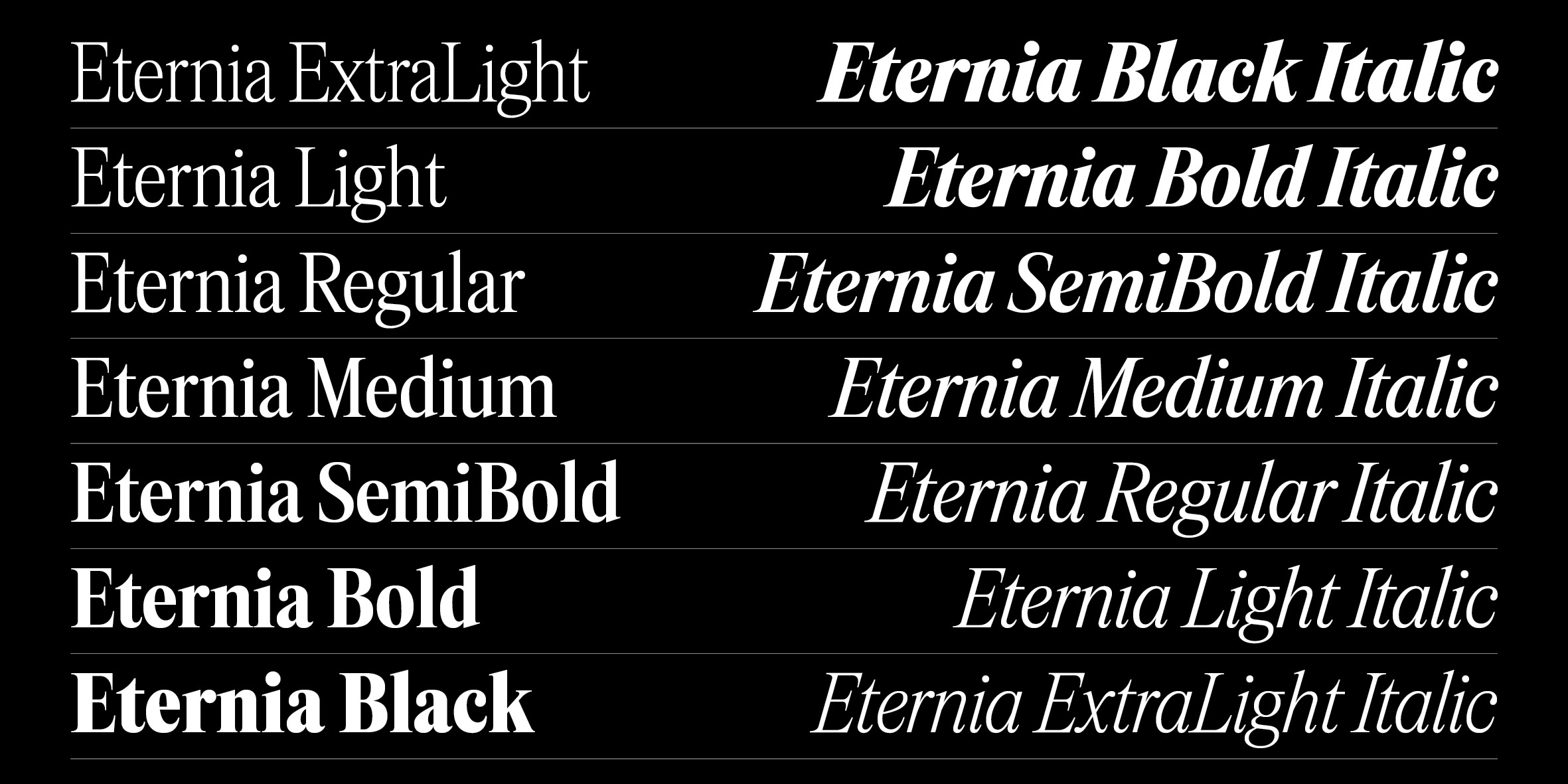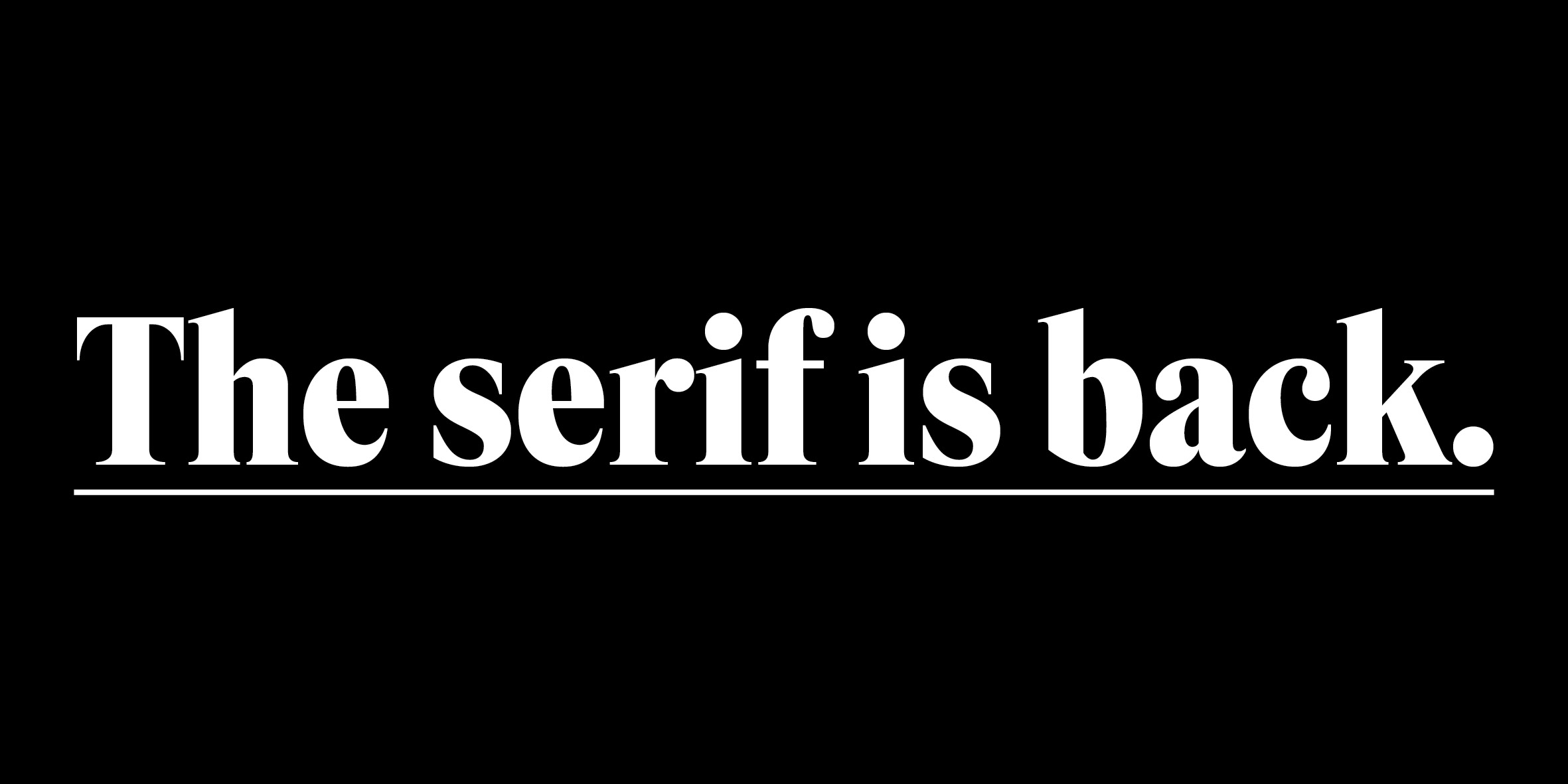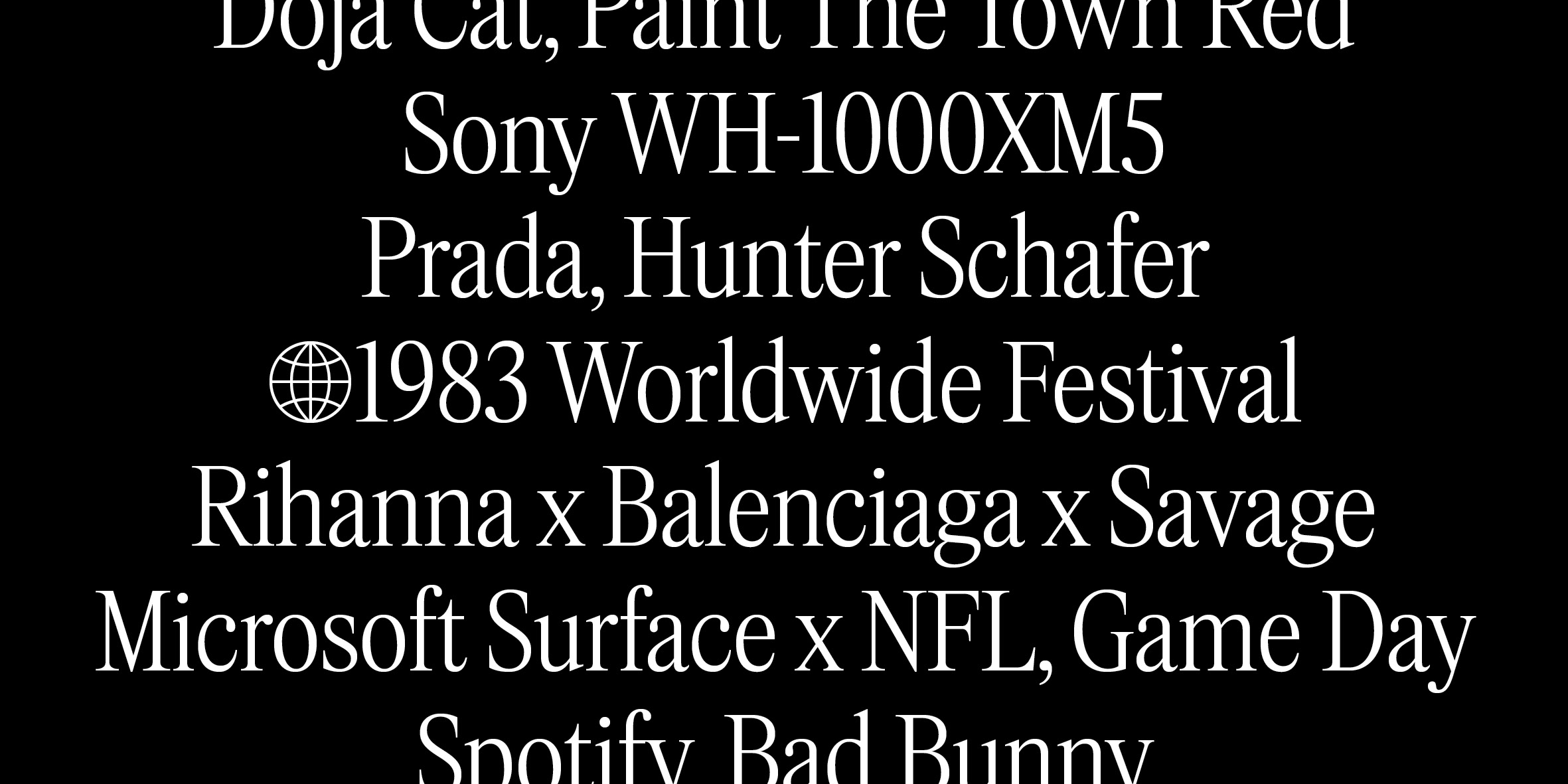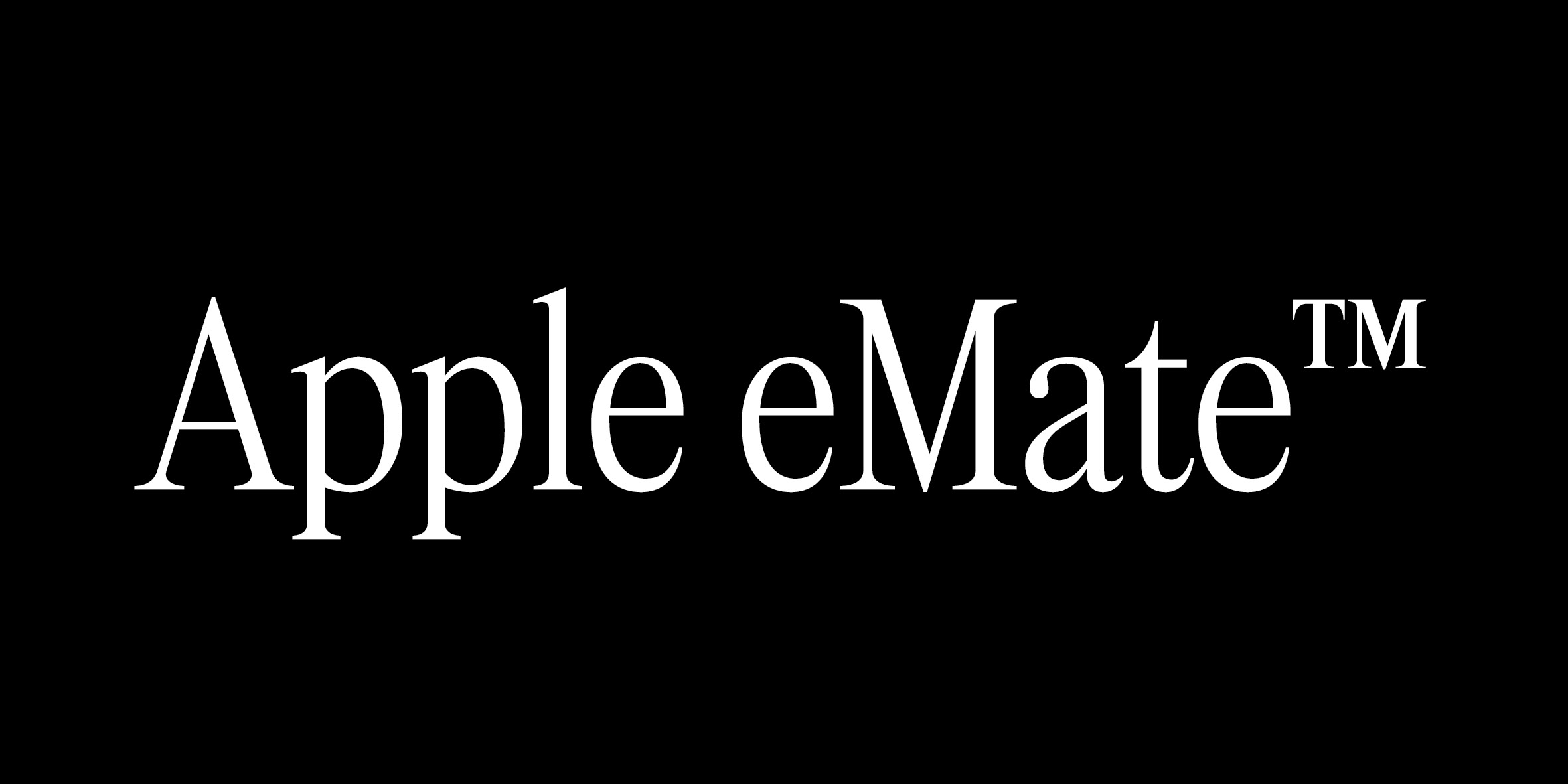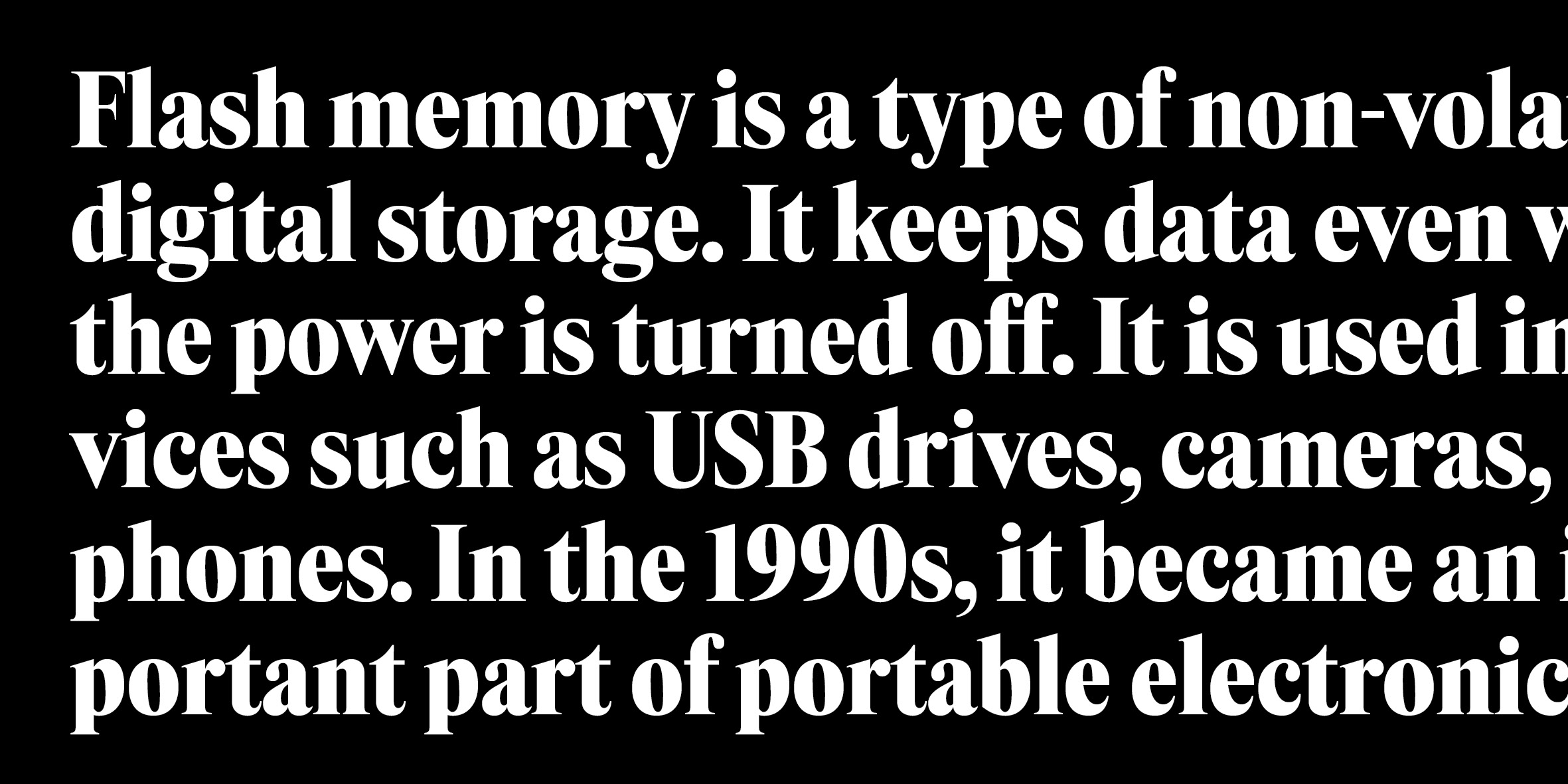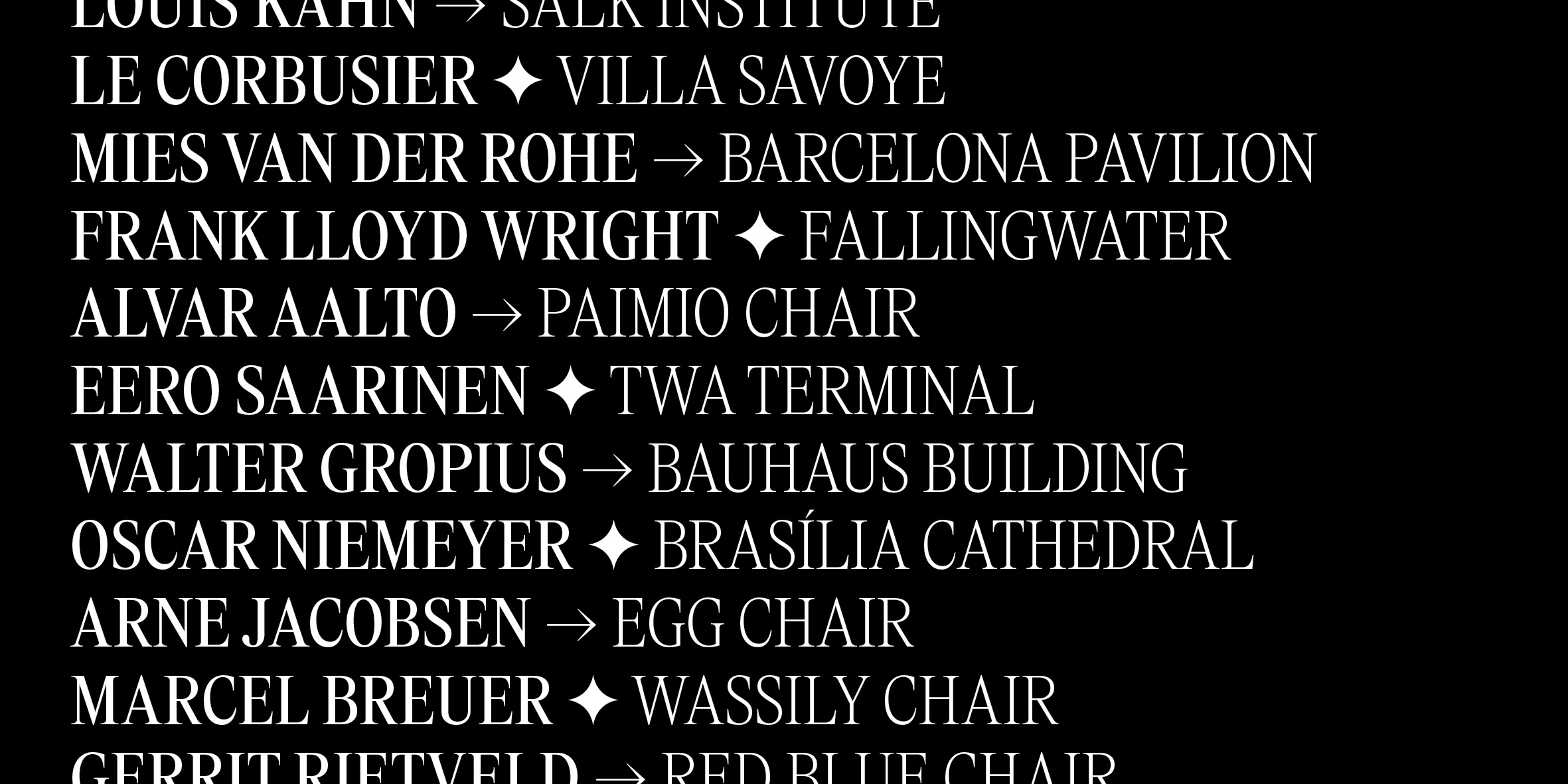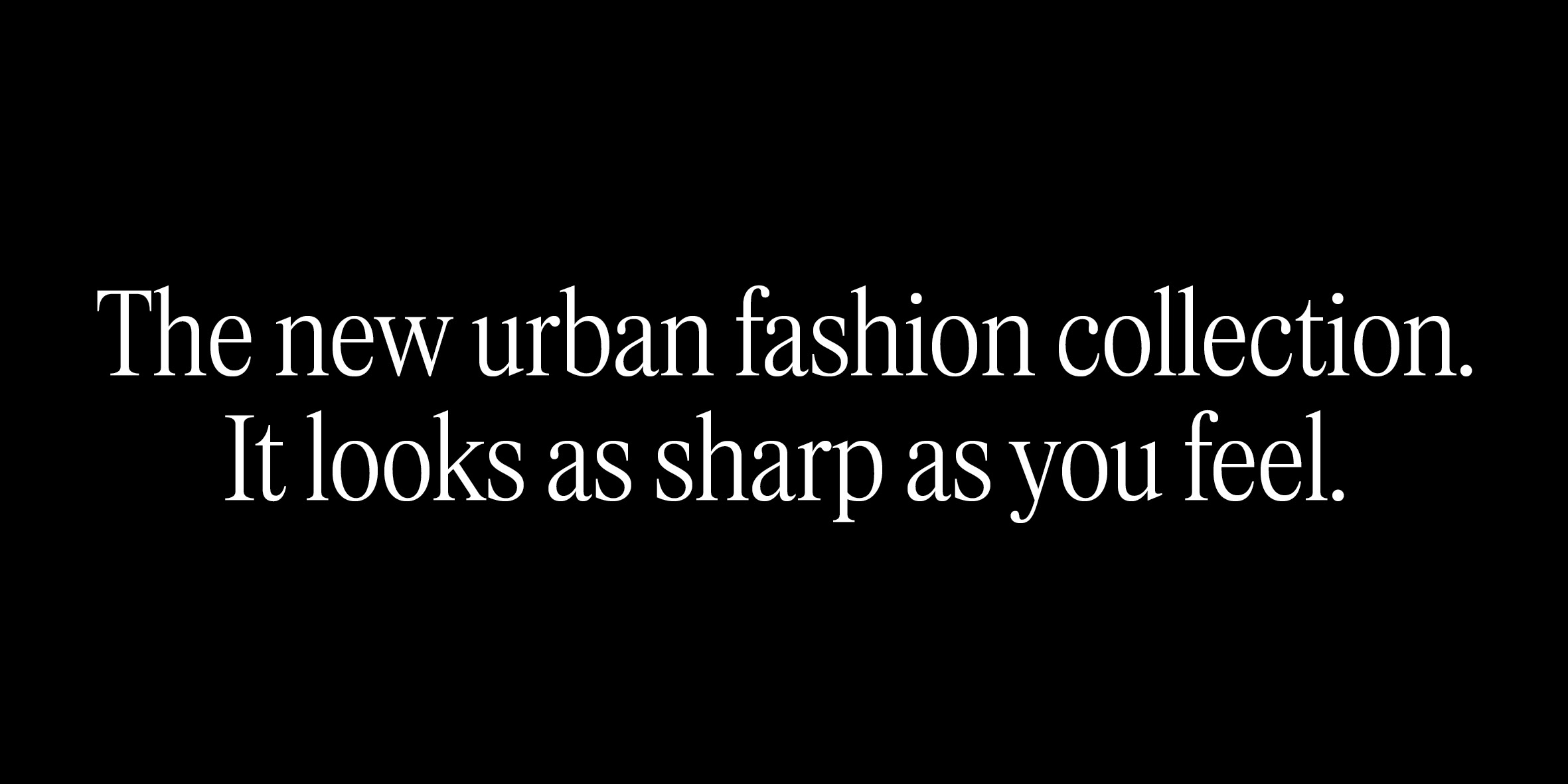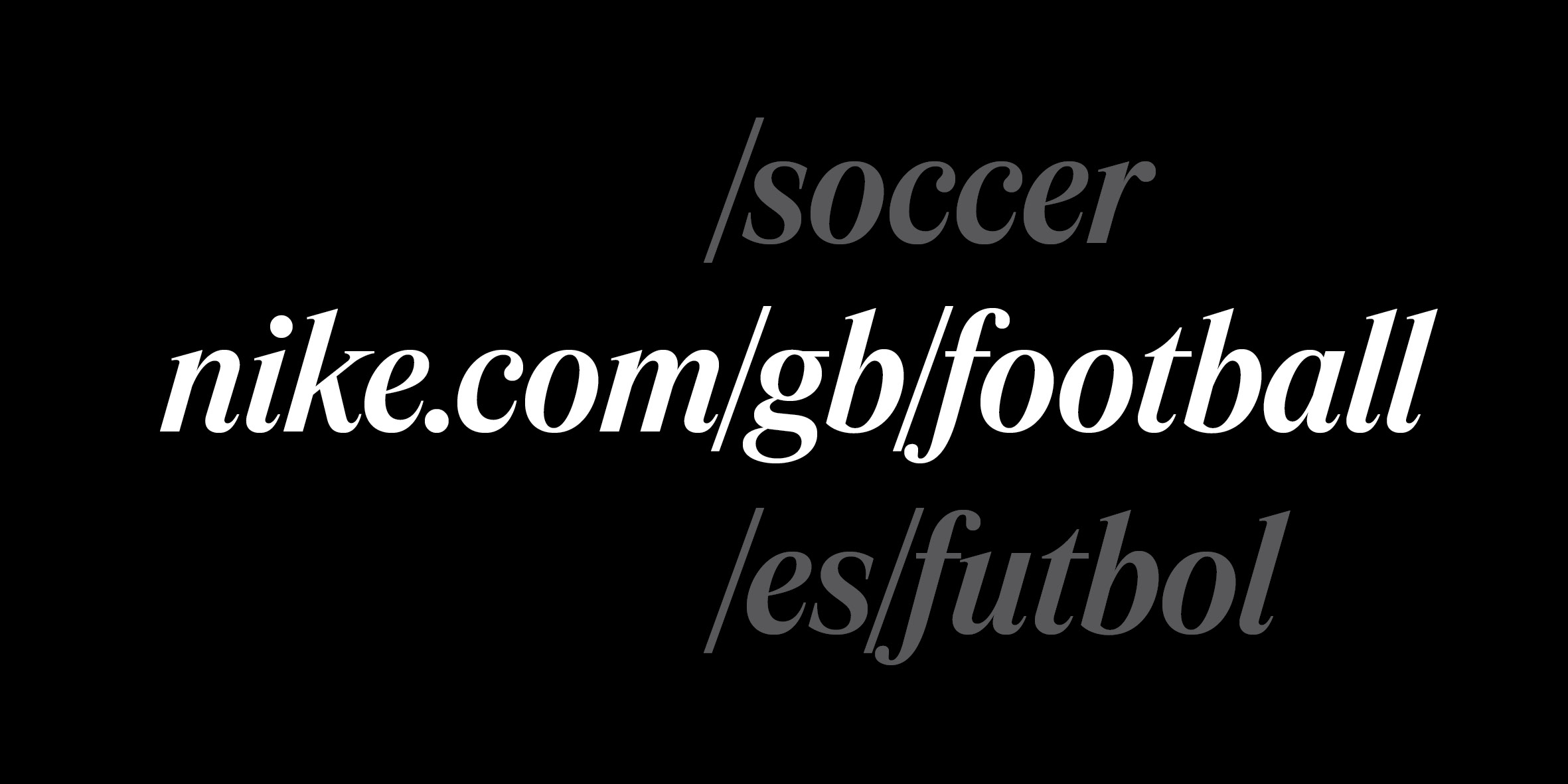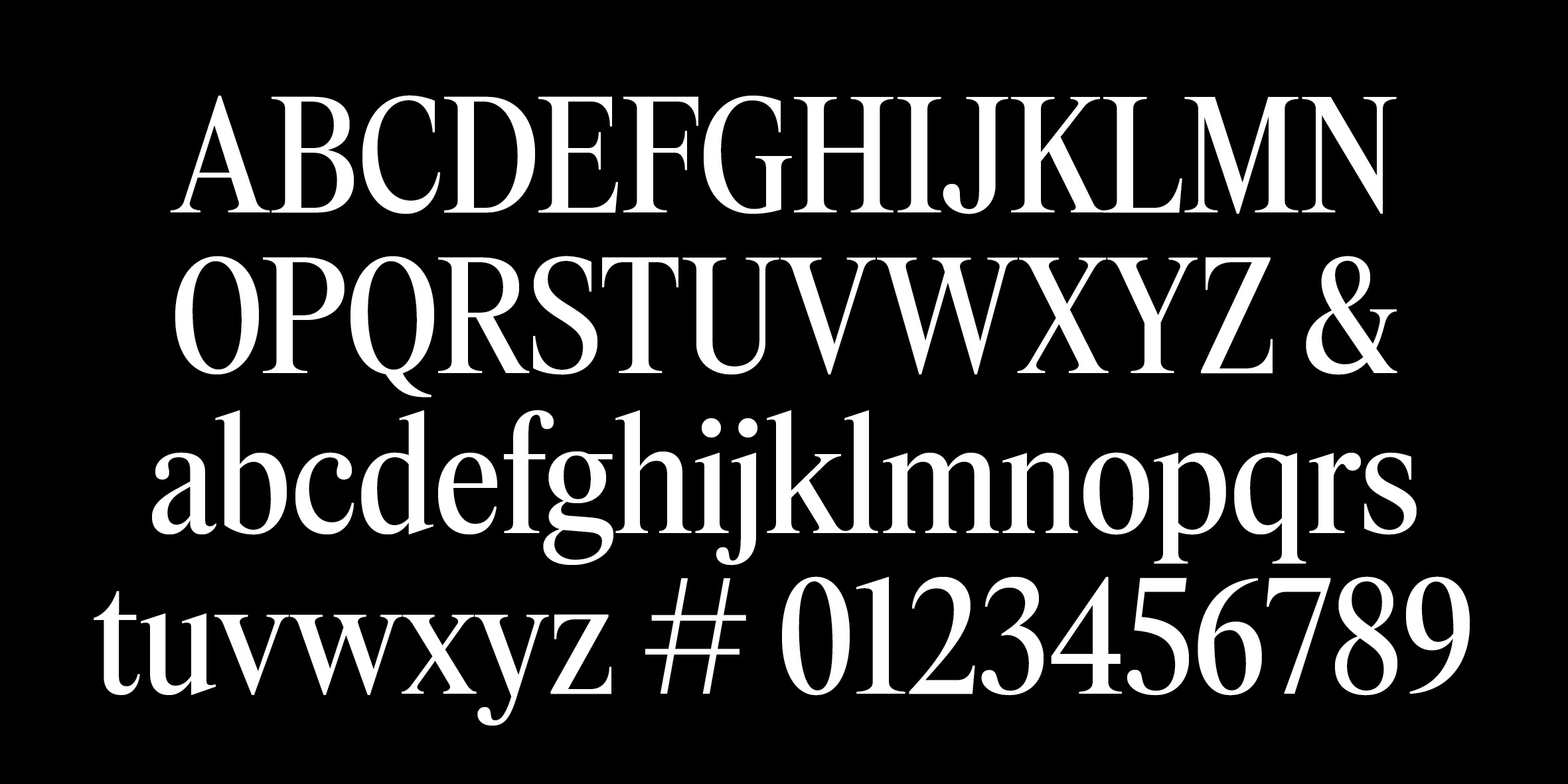
Eternia is inspired by the visual world of technology magazines, newspaper supplements, and advertising typography from the 1970s and 1980s. Its tall proportions and semi-condensed width give it a compact, vertical presence, while its controlled contrast and slightly tight spacing recreate the density and texture of headlines from that period. The result feels familiar without becoming nostalgic, a typeface that could have existed decades ago and still feel relevant today. 50% introductory discount for a limited time. Discover more about Eternia in the Blog.
Eternia